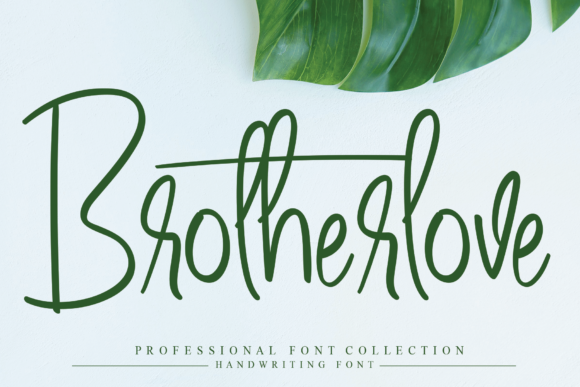
In a world where creativity reigns supreme, allow us to introduce Brotherlove Font - an exquisite gem crafted by Creativewhitee, designed to ignite your imagination and bring your artistic visions to life. Brotherlove Font isn't just a font; it's an experience. Each letter dances across the page like a delicate snowflake, carrying a whisper of elegance and a touch of whimsy.
As a script font, Brotherlove Font embodies the spirit of handwritten notes, capturing the warmth and charm of personal correspondence. Its sweet and delicate swashes add a touch of playfulness, making it perfect for adding a personal touch to invitations, greeting cards, and other heartfelt creations.
But Brotherlove Font is more than just charming; it's remarkably versatile. Its elegant lines and flowing curves make it suitable for a wide range of projects beyond personal correspondence. Envision Brotherlove Font gracing the pages of your latest novel, adding a touch of sophistication to your resume, or bringing life to your social media posts. The possibilities are endless.
And let's not forget the magic of Christmas! With its festive spirit, Brotherlove Font is the perfect choice for creating stunning holiday-themed designs. Picture your Christmas cards adorned with Brotherlove's graceful letters, carrying heartfelt messages to loved ones. Or use it to design gift tags that exude elegance and charm.
Brotherlove Font is more than just a font; it's an invitation to let your creativity soar. Its enchanting beauty and versatility make it the perfect choice for any project that demands a touch of elegance, charm, and festive cheer. Embrace the Brotherlove Font experience today and unlock a world of creative possibilities.